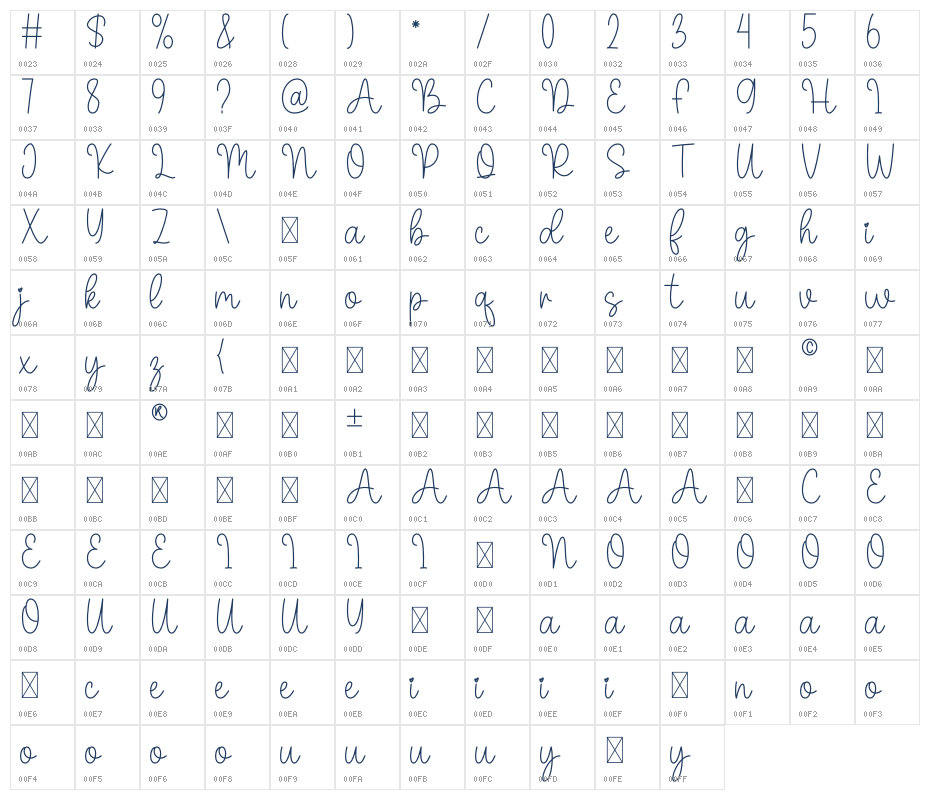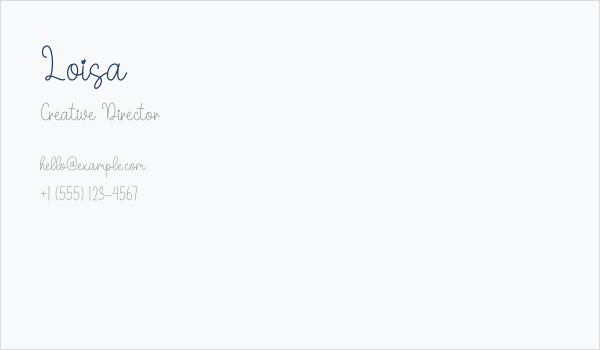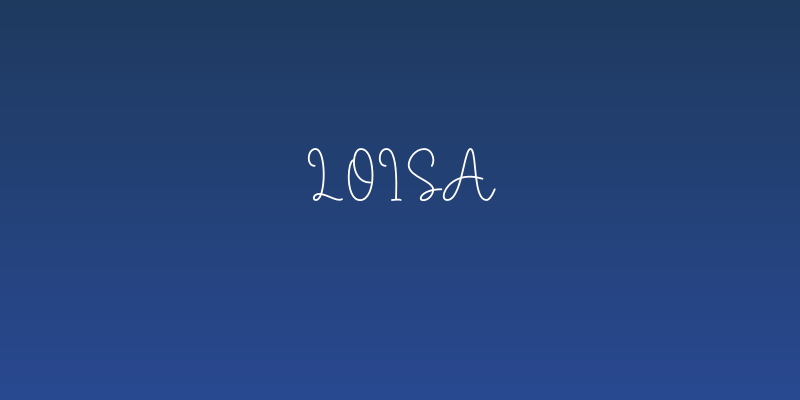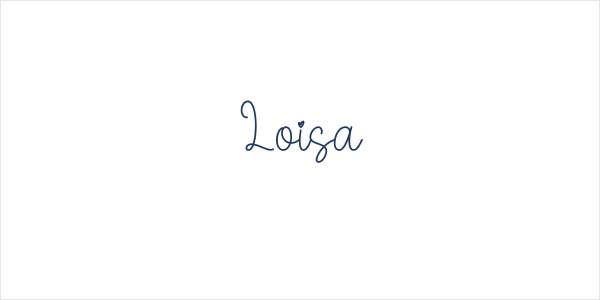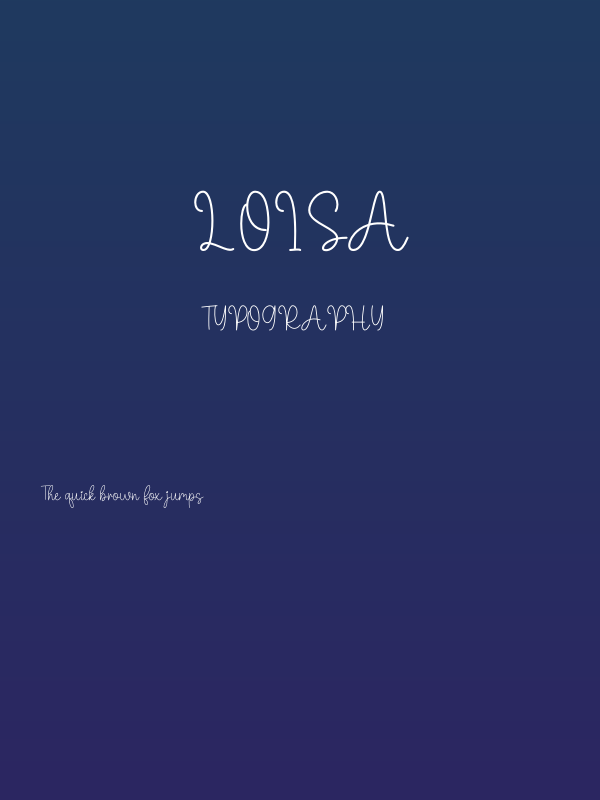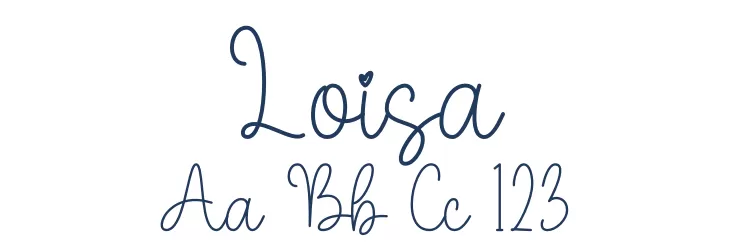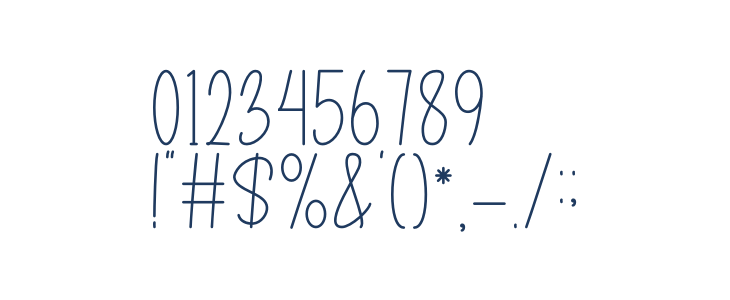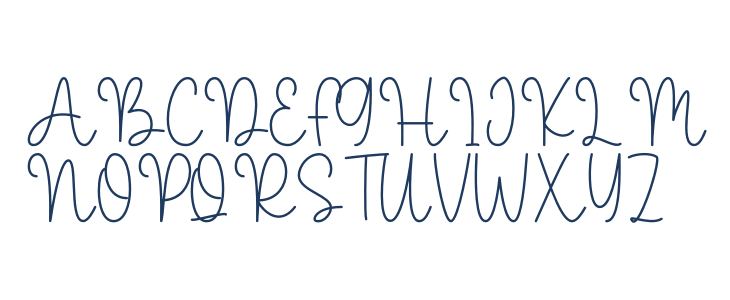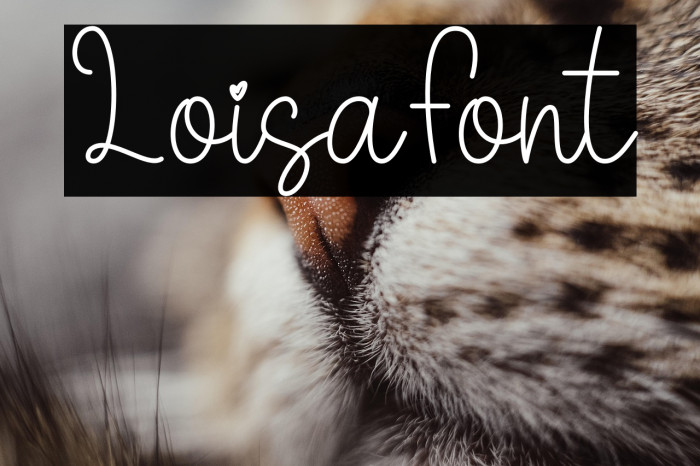
Loisa Font
Loisa Description
A handwritten, cursive style font with a playful and casual appearance, featuring thin, flowing lines and some decorative elements such as hearts.
| Overall Style | Casual, Playful, Handwritten |
| Use Case | Personal projects, Invitations, Greeting cards, Logos |